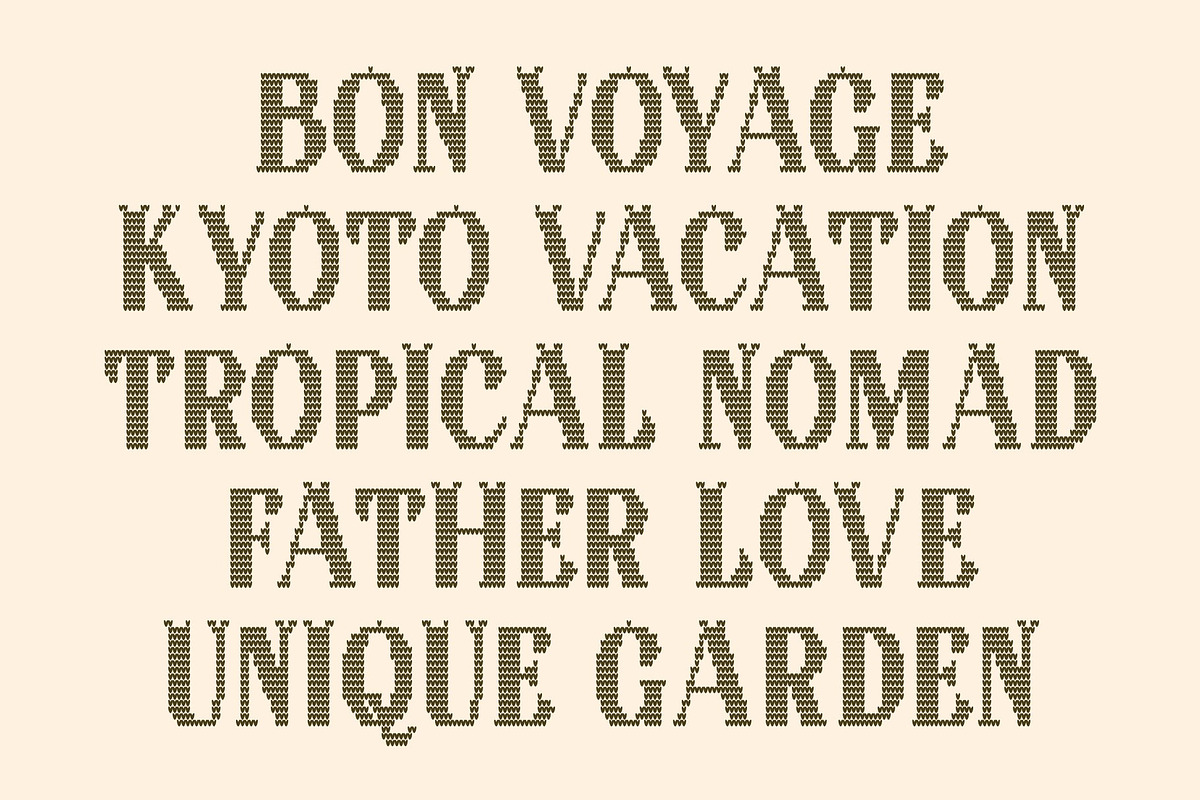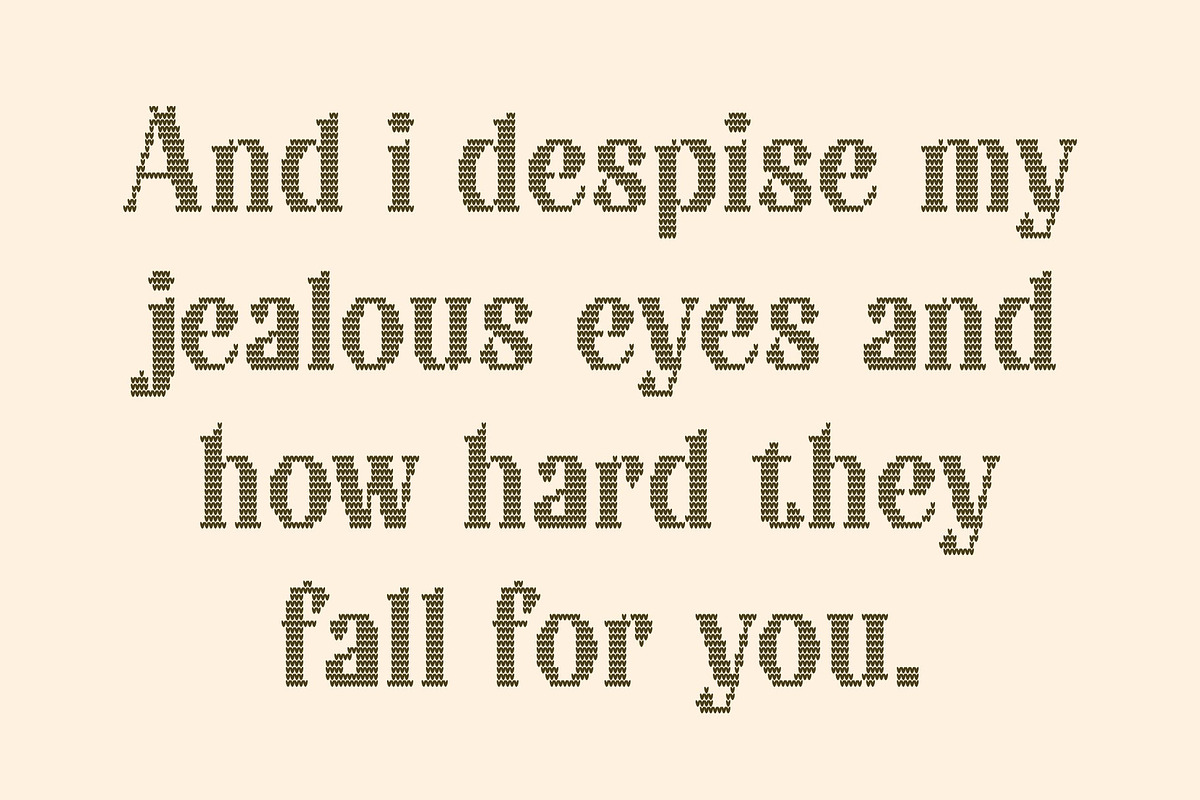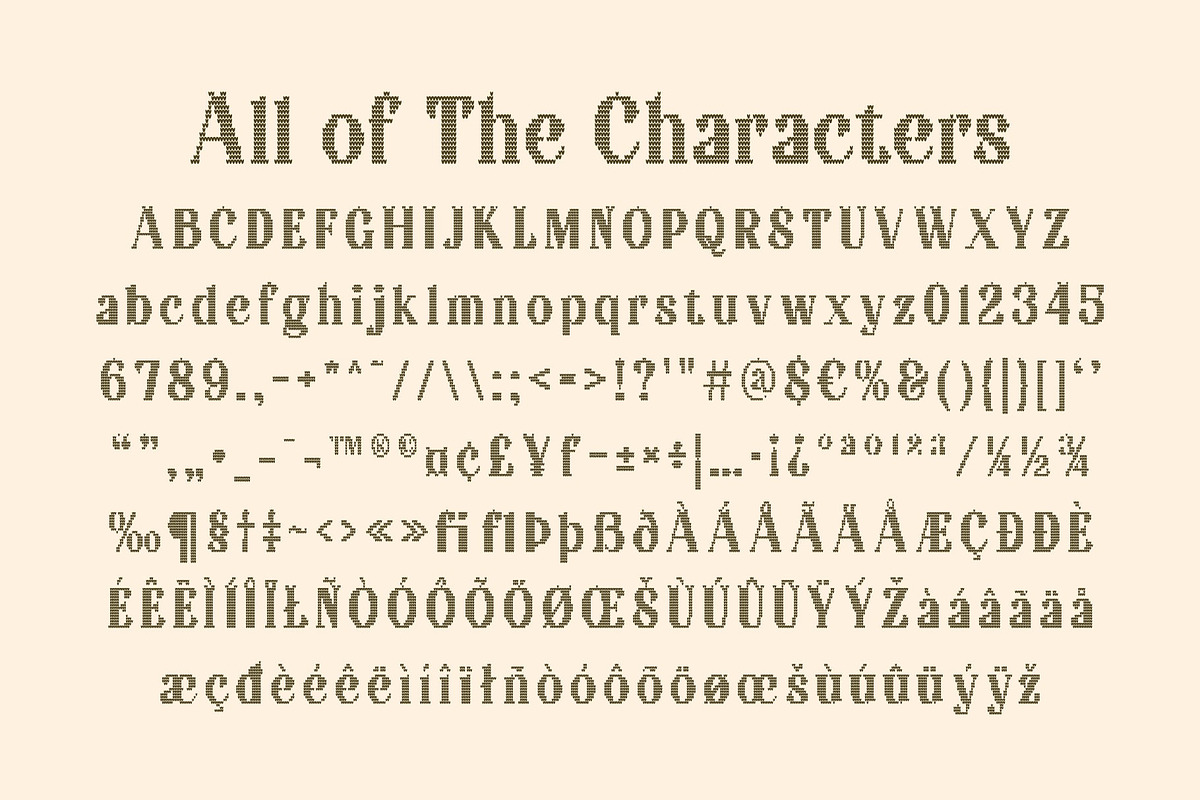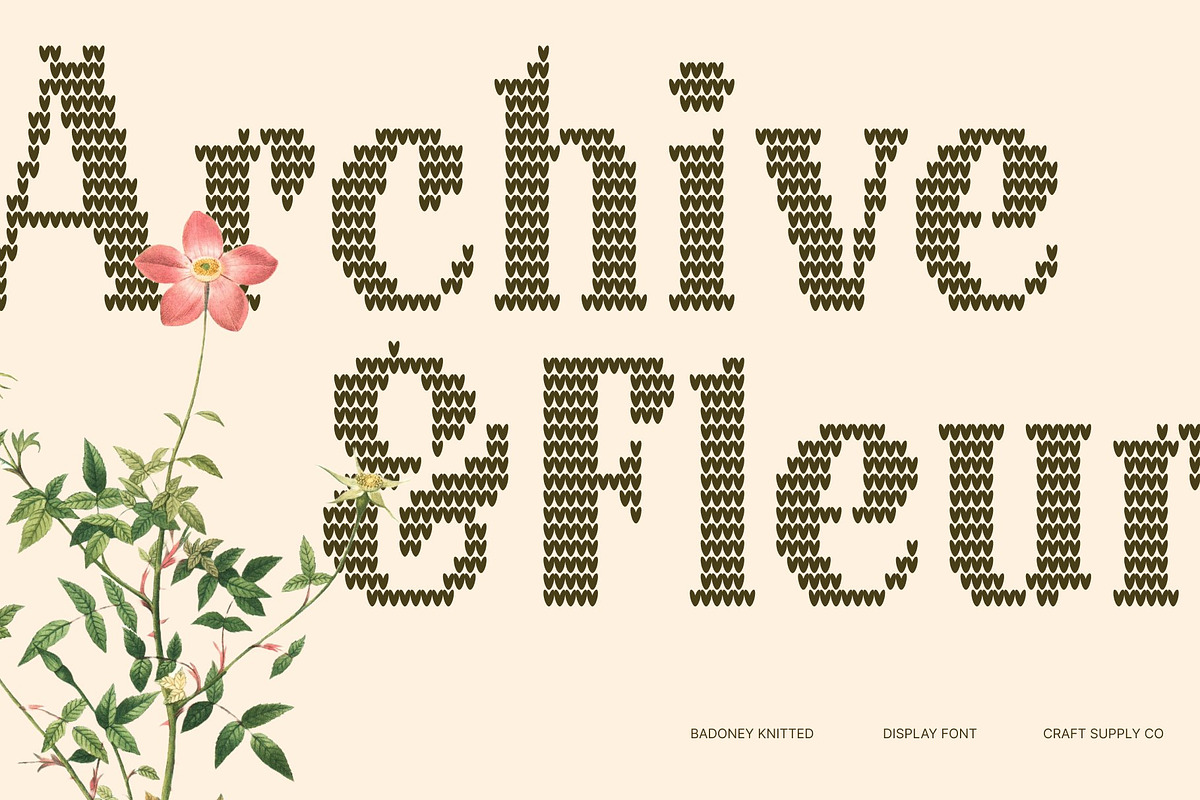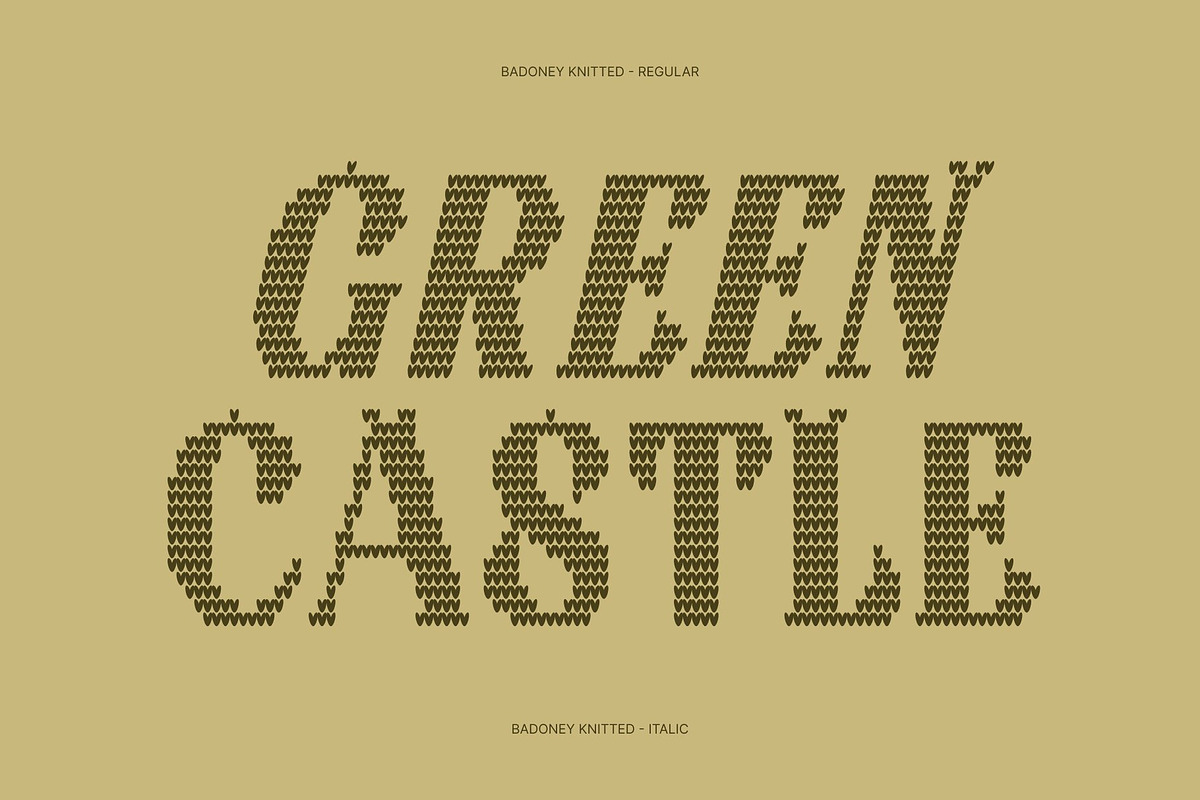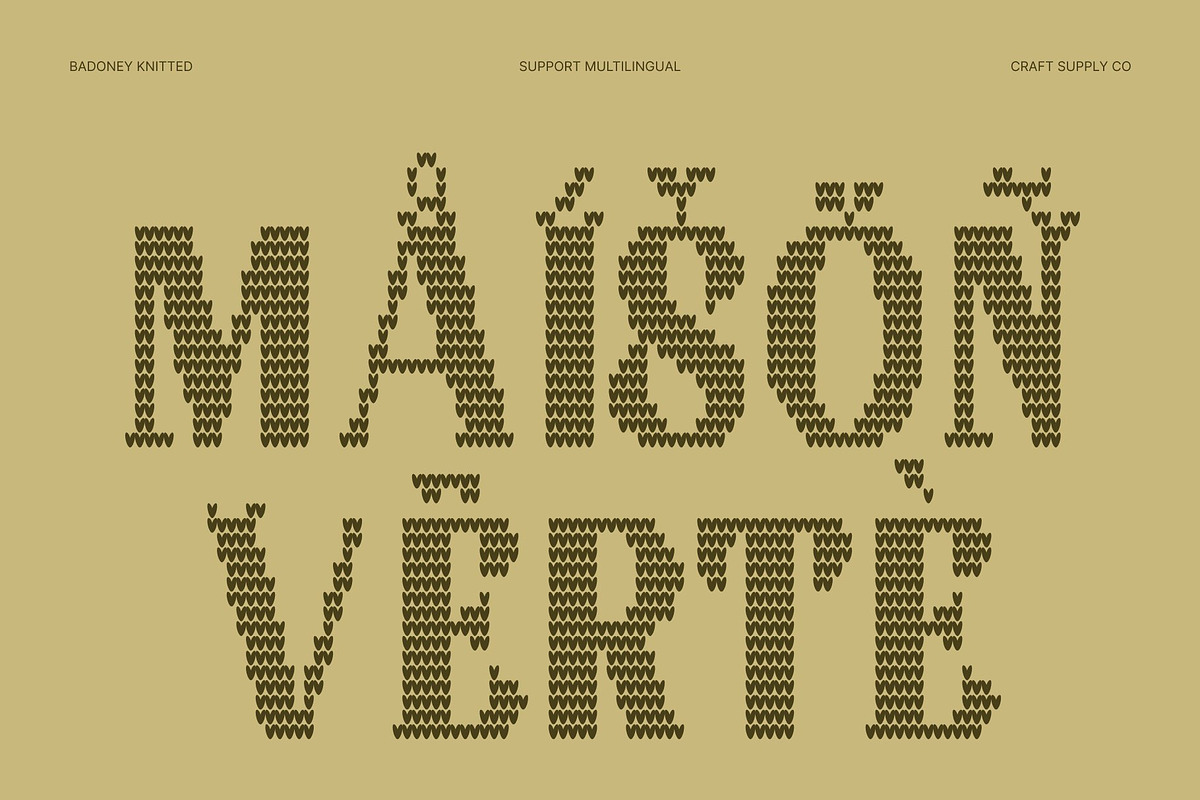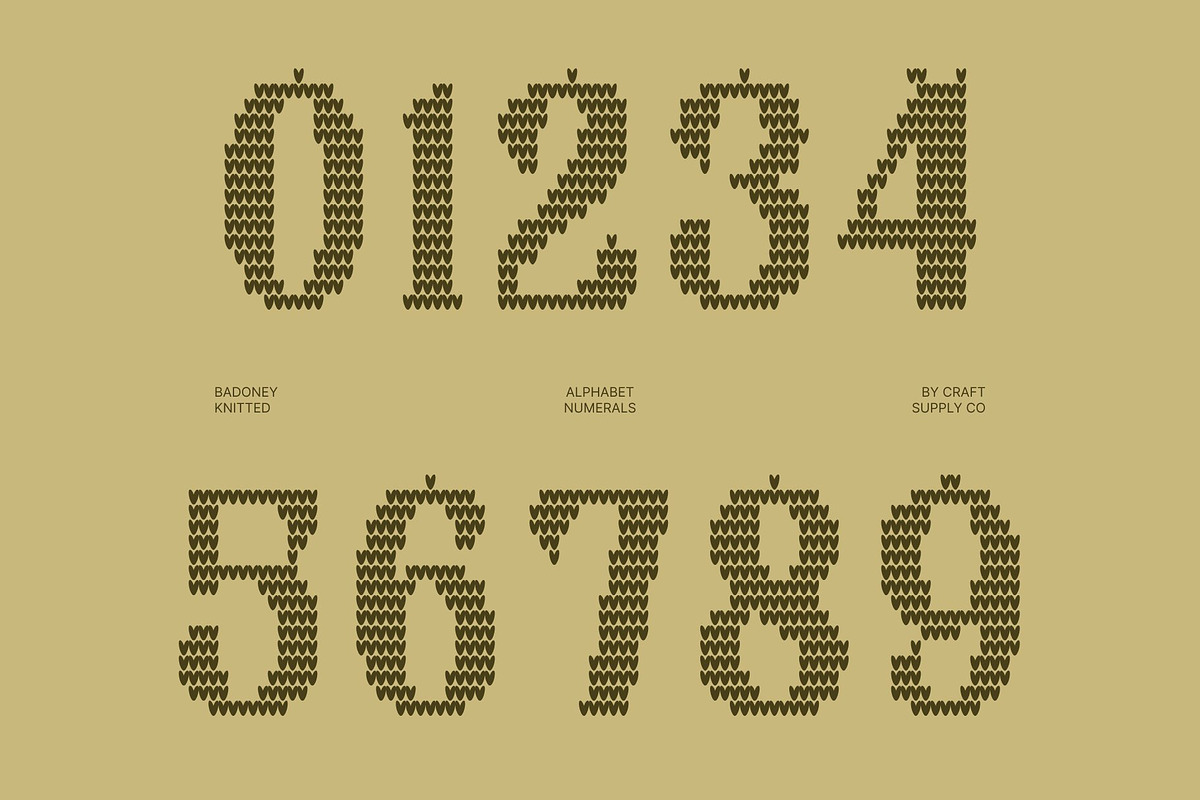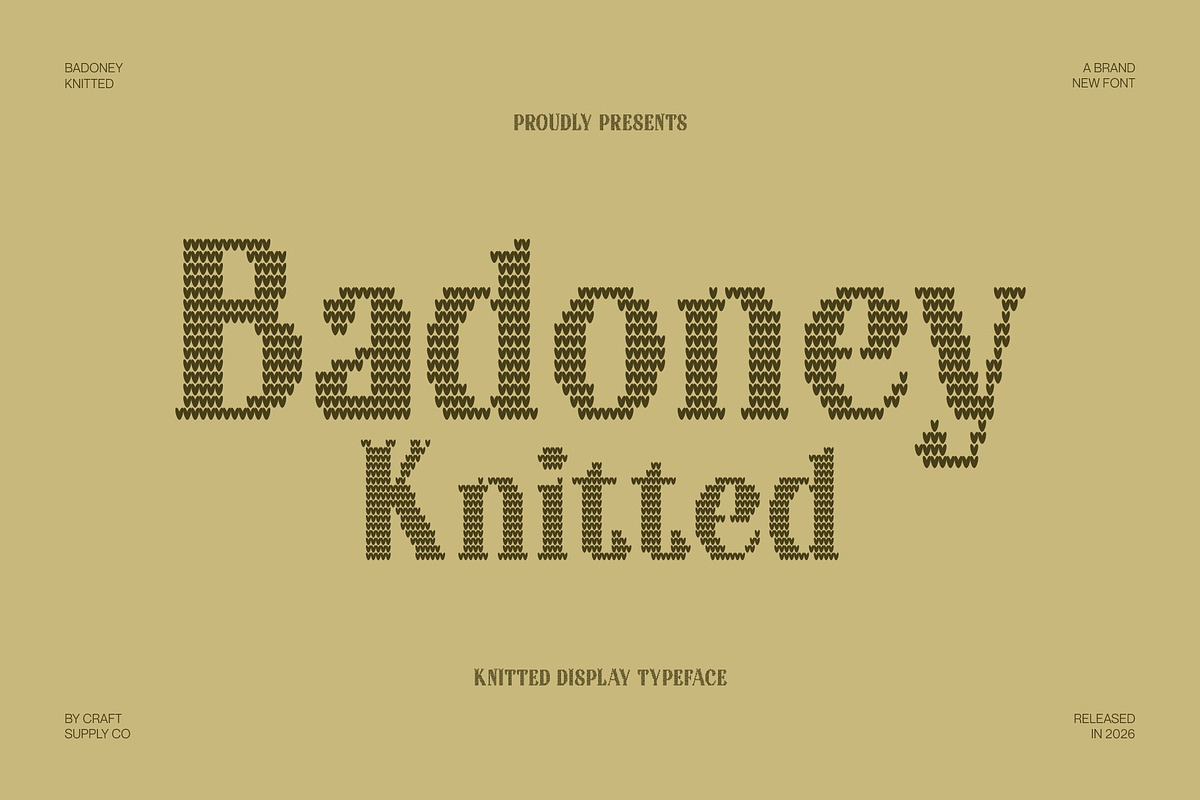
Badoney Knitted
Badoney Knitted – Vintage Display Serif Font: Where Classic Elegance Meets Cozy Handmade Texture
Stylish Serif Forms with Timeless Appeal This is a vintage display serif font that epitomizes style, elegance, and classic charm. Its decorative letterforms, refined proportions, and distinctive serif details create a sophisticated visual presence that feels nostalgic yet enduringly fashionable.
Knitted Effect with Warm Textile Character This font designed to resemble the texture of woven yarn found in sweaters, scarves, and handcrafted knitwear. Inspired by the looped structure of knitted fabric, this cozy texture adds warmth, depth, and a handcrafted quality to the elegant serif forms. The result is a unique combination of vintage refinement and comforting handmade aesthetics.
Classic Sophistication Meets Handmade Warmth This font creates a visual identity that feels both luxurious and inviting. Its decorative serif structure conveys heritage and elegance, while the knitted texture introduces a playful and approachable charm that makes designs feel more personal and memorable.
Perfect for Holiday and Handmade-Themed Designs Suitable for Christmas and holiday posters, handmade packaging, knitting and crochet brands, kids’ brands, greeting cards, winter-themed social media content, product labels, and creative visual identities. Its distinctive knitted texture and vintage display character make it ideal for logos, headlines, titles, and display typography that seek to communicate warmth, creativity, and timeless style.
Badoney Knitted Regular
Badoney Knitted Italic